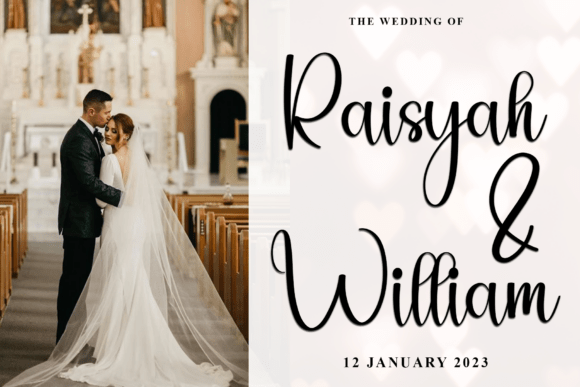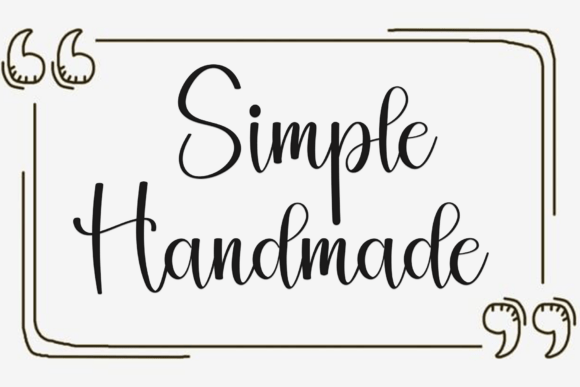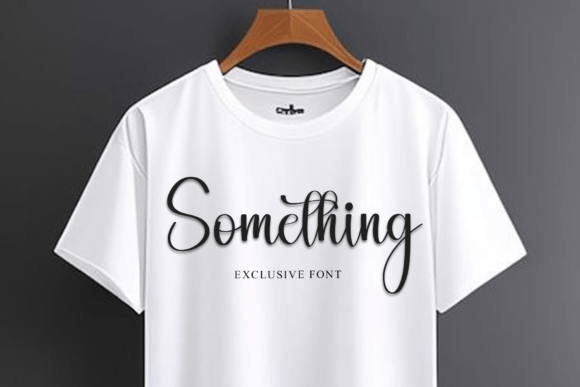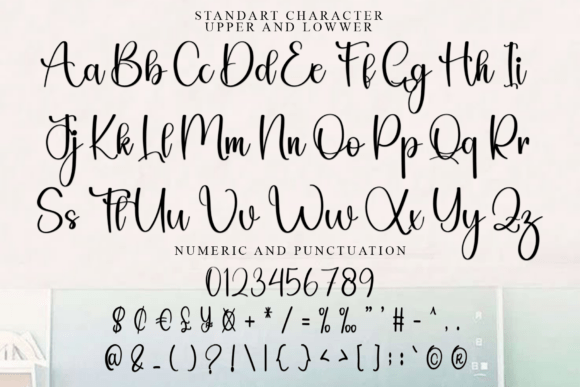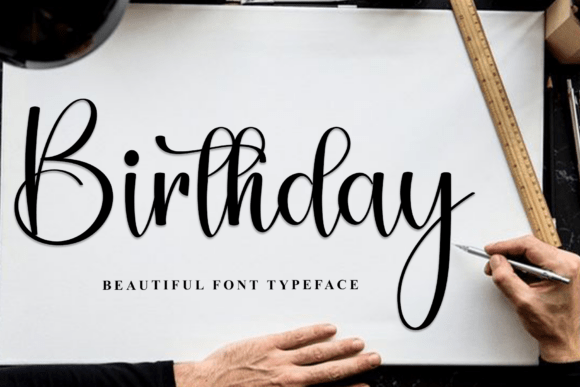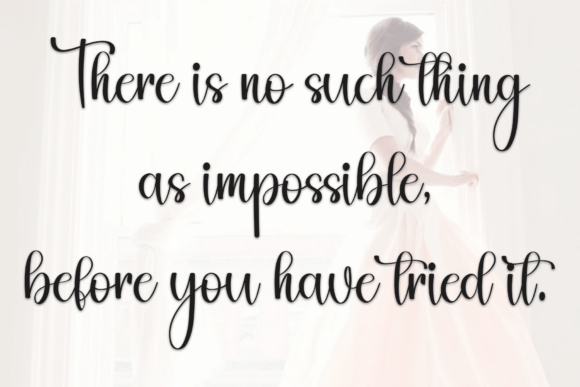
The Sweet Taste of Typography: Discovering the Magic of Candy Cream Font
Have you ever found yourself stuck in a creative rut, searching for that perfect font to bring your design to life? I know I have. There’s something about the combination of colors and typography that can elevate a project from good to great. For me, it was a late-night brainstorming session where I stumbled upon the enchanting Candy Cream Font. Its soft, unique touch immediately caught my eye, and I knew I had to learn more.
As I delved deeper into the world of Candy Cream Font, I discovered its versatility and adaptability to various design projects. With its distinctive strokes and wide range of characters, this font is perfect for designers looking to add a touch of whimsy and personality to their work. Whether you’re a seasoned pro or a beginner, the Candy Cream Font is an invaluable asset to have in your design toolkit.
- Unique Characteristics: Distinctive, playful, and whimsical design; features a range of swashes, flourishes, and ornaments for added visual interest
- Font Style: Script, casual, and cursive styles available, suitable for various design applications
Candy Cream Font Review
Overall, I think the Candy Cream Font is a sweet addition to any design project. Here are some of its strengths:
- ✨ Playful and whimsical vibe: The font’s bold, rounded shapes and cursive feel make it perfect for creating a lighthearted and approachable atmosphere.
- ✨ Nice contrast between bold and light weights: The font’s weight options provide a nice balance between bold statements and delicate details.
- ⚠️ Not ideal for body text: While the font is great for headings and titles, it may not be the best choice for large blocks of body text due to its busy, decorative feel.
Overall, I think the Candy Cream Font is a great choice for designers looking to add a touch of whimsy to their projects. Just be aware of its limitations and use it thoughtfully.
The Candy Cream font is ideal for creating playful and whimsical designs. Use it for:
- Birthday party invitations and decorations
- Children’s book covers and illustrations
- Food and dessert branding
- Wedding invitations and decorations
Remember to adjust the font size and style to suit the tone and theme of your design.
Great Vibes is a beautiful, elegant script font that can be used for various design projects. It’s perfect for creating a luxurious and high-end feel. This font is ideal for weddings, invitations, and other special occasions.
Compared to Candy Cream Font, Great Vibes has a more sophisticated and refined look. While Candy Cream Font has a playful and whimsical feel, Great Vibes is more sophisticated and elegant.
Carolyna Pro is a modern and elegant script font that’s perfect for creating a luxurious and high-end feel. It’s ideal for fashion, beauty, and lifestyle brands, as well as for weddings and special occasions.
Compared to Candy Cream Font, Carolyna Pro has a more modern and sleek look. While Candy Cream Font is playful and whimsical, Carolyna Pro is more refined and sophisticated.
Madrid Script
Madrid Script is a beautiful and elegant script font that’s perfect for creating a luxurious and high-end feel. It’s ideal for fashion, beauty, and lifestyle brands, as well as for weddings and special occasions.